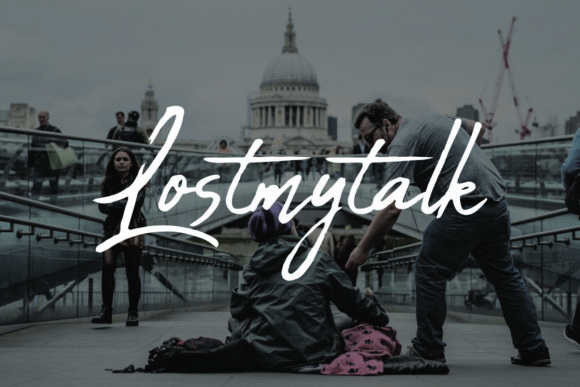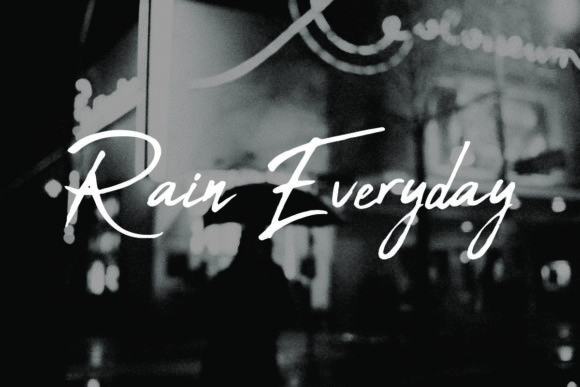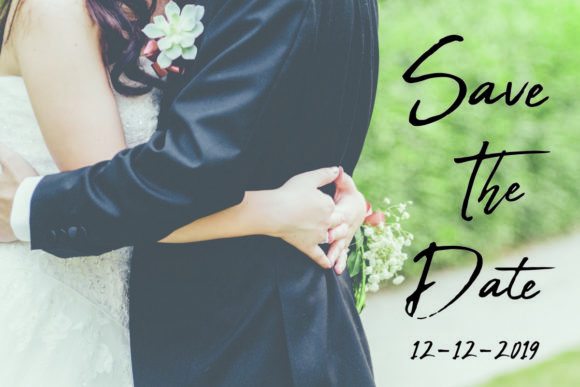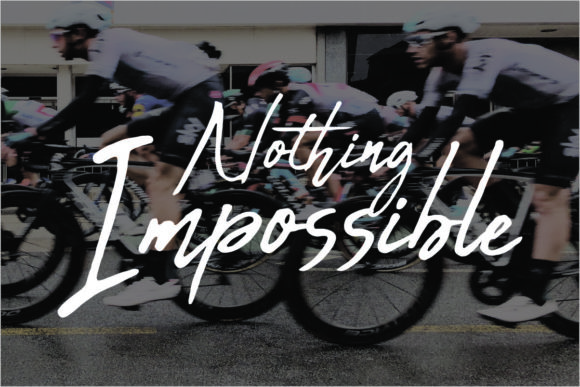
Lostmytalk Font
About Lostmytalk Font
Lostmytalk is a simple, yet elegant handwritten font with an authentic feel. Use it to add a level of charm to any design project.